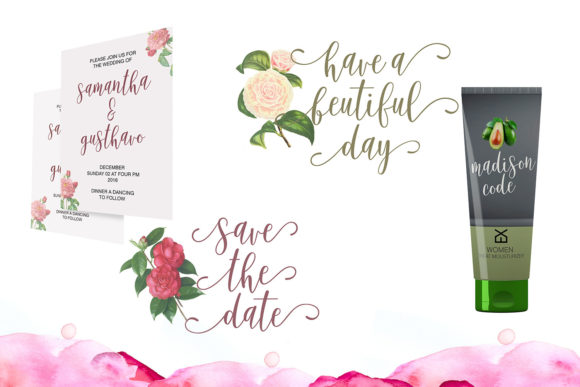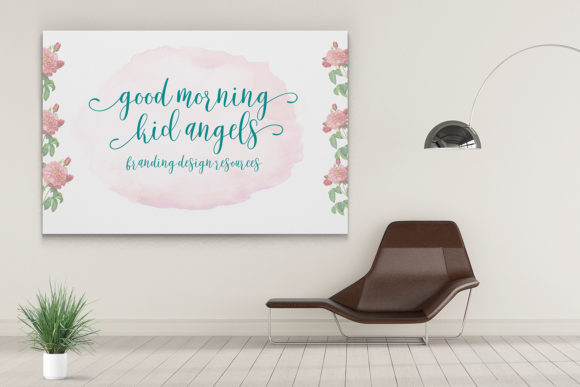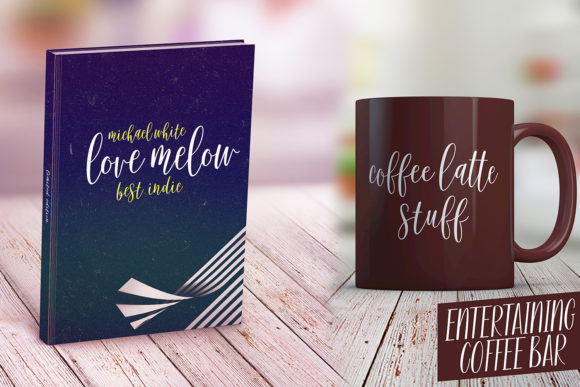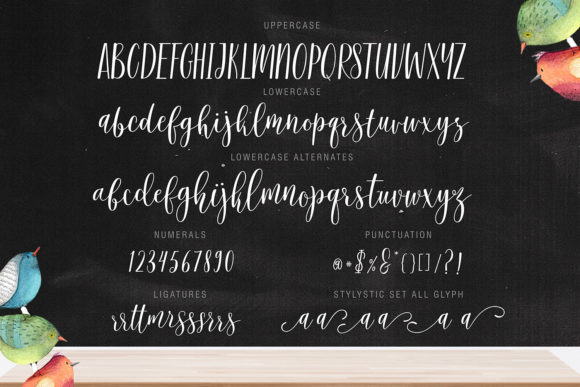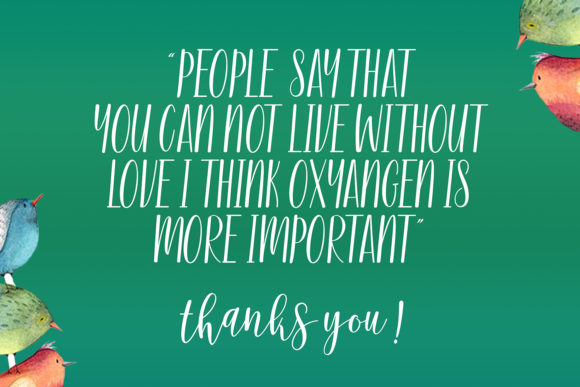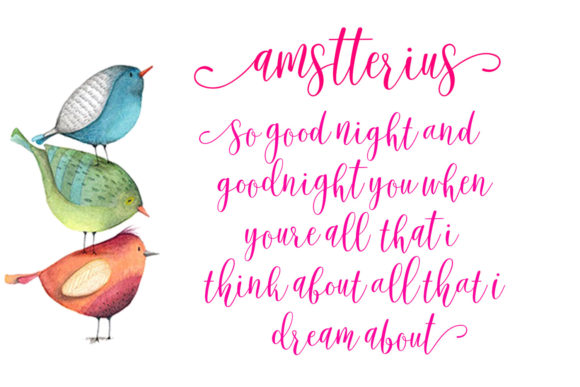
Introduction to Sarinah Script Font
Have you ever been working on a creative project and stumbled upon the perfect font that elevates your design to the next level? For designers, finding that one special font can be a game-changer. For me, it was the moment I discovered the Sarinah Script Font – a beautifully crafted, cursive script font that adds a touch of elegance and sophistication to any design.
With its well-balanced feel and trendy aesthetic, the Sarinah Script Font is the perfect design resource for creatives looking to add a personal touch to their projects. Whether you’re designing wedding invitations, marketing materials, or blog designs, this font is sure to make a lasting impression. And the best part? It’s available for free download, making it a valuable addition to any designer’s toolkit.
Key Features of Sarinah Script Font
- High-quality, elegant script font suitable for creative projects requiring a touch of sophistication.
- Unique characteristics include flowing connections between letters, giving it a natural and handwritten feel.
- Perfect for use in invitations, greeting cards, logos, and other creative projects where a beautiful script font is required.
Honest Review: Sarinah Script Font
I recently came across the Sarinah Script Font, and I was excited to see how it would perform in my creative project. The font is a beautiful, elegant script that is perfect for adding a touch of sophistication to your design.
One of the things that stood out to me about the Sarinah Script Font is its high quality. The font is clear and crisp, making it perfect for printing or digital use. The transparent background option is also a great feature, allowing me to easily place the font over any background.
Here are some of the things that work well with the Sarinah Script Font:
- Beautiful, elegant script design
- High quality, clear and crisp letters
- Transparent background option for easy placement
- Perfect for creative projects, such as wedding invitations or branding materials
- Not suitable for bold or heavy text, as it can become difficult to read
- May not be the best choice for projects that require a lot of customization, as the font is relatively simple
Overall, I’m really impressed with the Sarinah Script Font. It’s a great design resource that is perfect for adding a touch of elegance to your creative project. And the best part? It’s a free download, making it a great option for designers on a budget.
Tips for Getting the Most Out of the Sarinah Script Font
Use a transparent background to create a clean and modern look. Experiment with different font sizes and colors to add depth and interest to your design. You can also combine the Sarinah Script Font with other design resources to create a unique and high-quality design.
The Sarinah Script Font is perfect for creative projects such as invitations, brochures, and social media graphics. Its elegant and sophisticated design makes it ideal for weddings, luxury brands, and high-end businesses. With its free download and high-quality design, the Sarinah Script Font is a valuable design resource for any creative project.